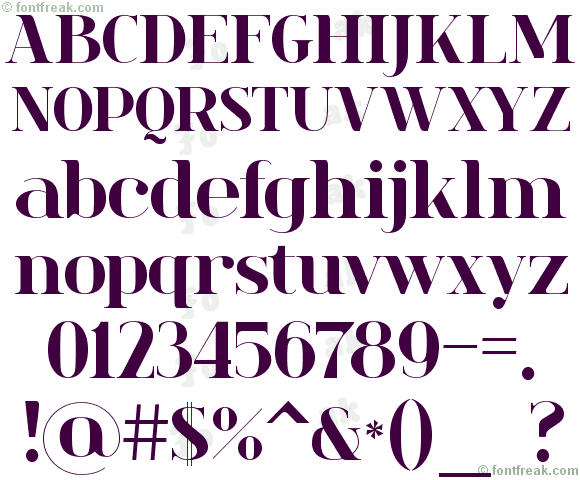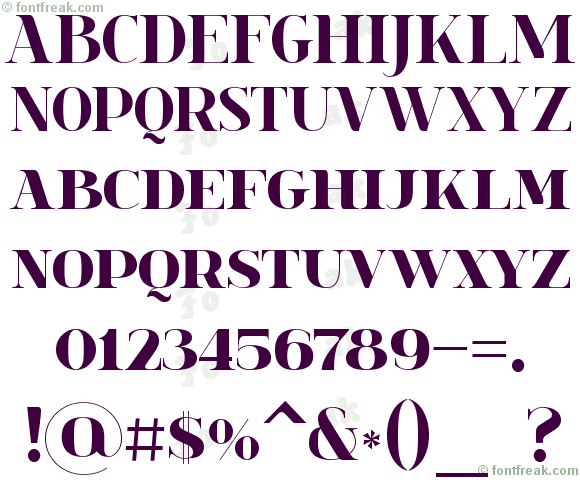
spinwerad Bold
spinweradC Bold
About spinwerad Bold
Spinwerad Bold, created by Grzegorz L. and available as a freeware font, is a striking serif typeface that captivates with its unique blend of modern elegance and traditional charm. This font stands out due to its pronounced stroke weight and balanced contrast, which enhances readability while maintaining a sophisticated aesthetic. The letters feature slightly elongated forms and generous spacing, contributing to a clean and airy appearance that makes it versatile for various design projects.
This font is particularly well-suited for use in wedding invitations, where its elegant flair can add a touch of romance and refinement. Additionally, it shines on movie posters, capturing attention with its bold presence and making titles pop. Restaurant menus also benefit from the font's stylish yet readable nature, inviting diners to explore the offerings with a sense of sophistication. Moreover, it can be effectively employed in branding materials, helping small business owners establish a memorable visual identity that resonates with their target audience.
In conclusion, Spinwerad Bold is not just another typeface; it is a design tool that stands out for its blend of classic serif characteristics and contemporary appeal. With its elegant form and versatility, the spinwerad Bold font free download offers a fantastic opportunity for designers looking to enhance their work with a bold and beautiful typeface.